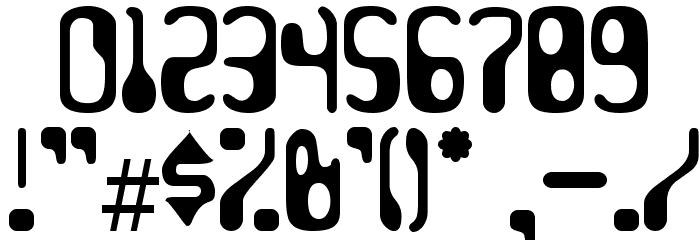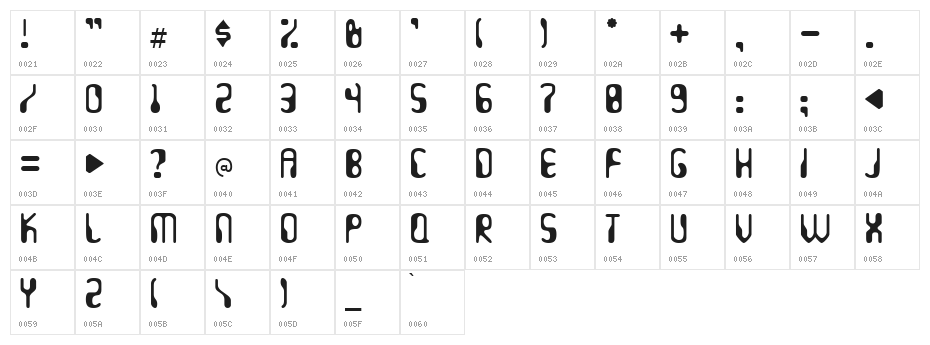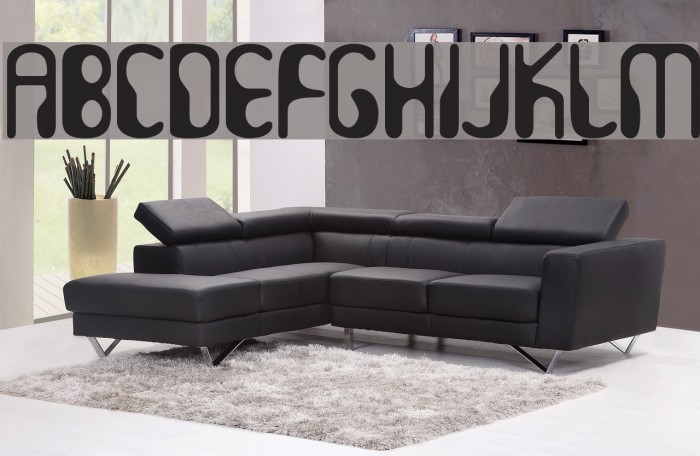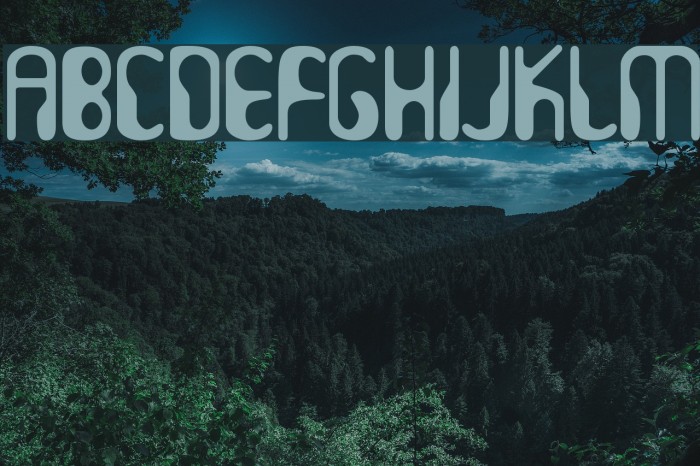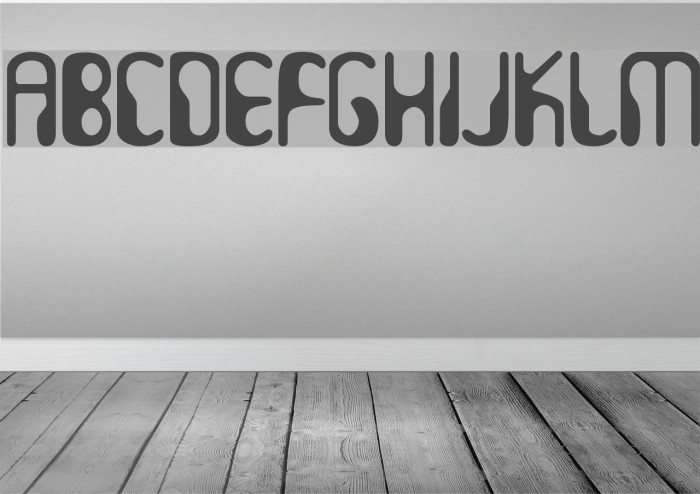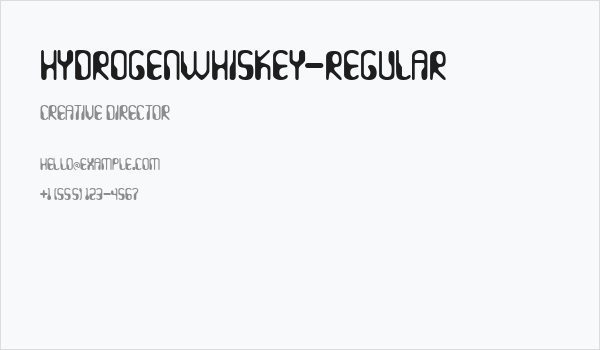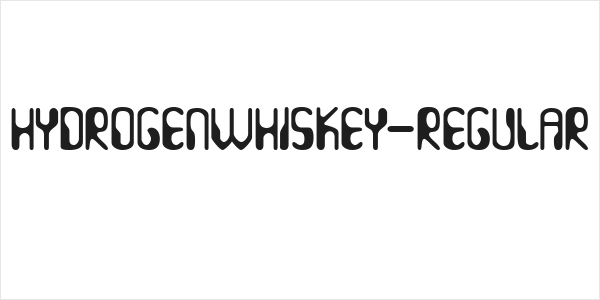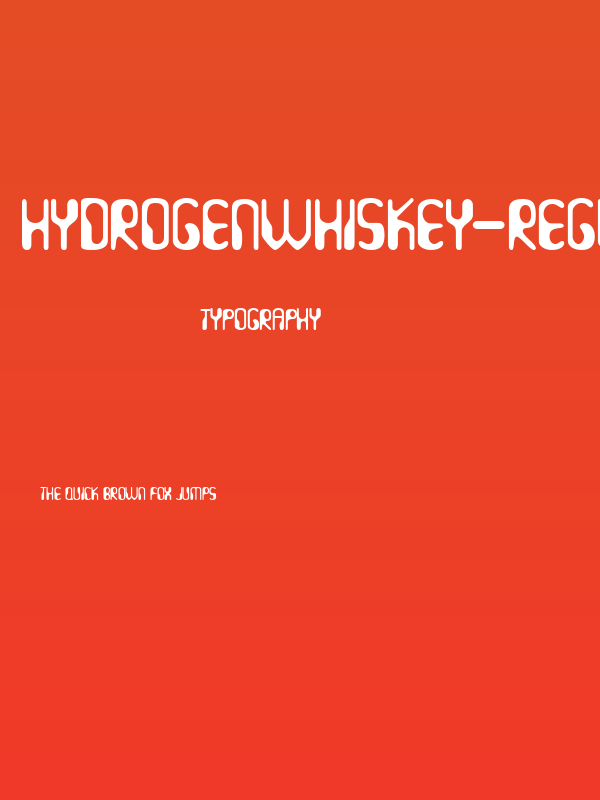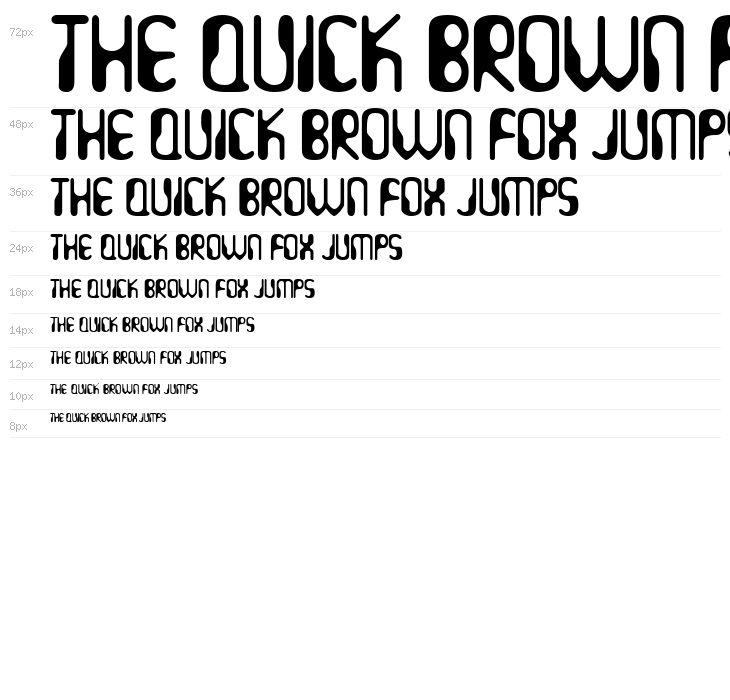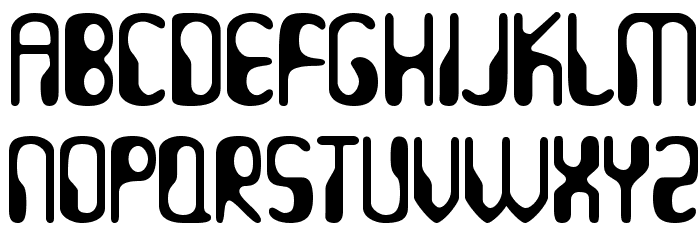
HydrogenWhiskey-Regular Font
HydrogenWhiskey-Regular Description
This font features a bold and modern design with a unique, futuristic aesthetic. The characters are rounded and have a distinct, fluid appearance, creating a sense of movement and dynamism. The strokes are thick and consistent, giving the font a strong presence. The uppercase and lowercase letters maintain a uniform style, while the numbers and special characters complement the overall look. The font's design is both eye-catching and versatile, suitable for a variety of creative projects.
| Proposed Projects | Ideal for branding, advertising, poster design, and digital media projects that require a modern and dynamic look. |